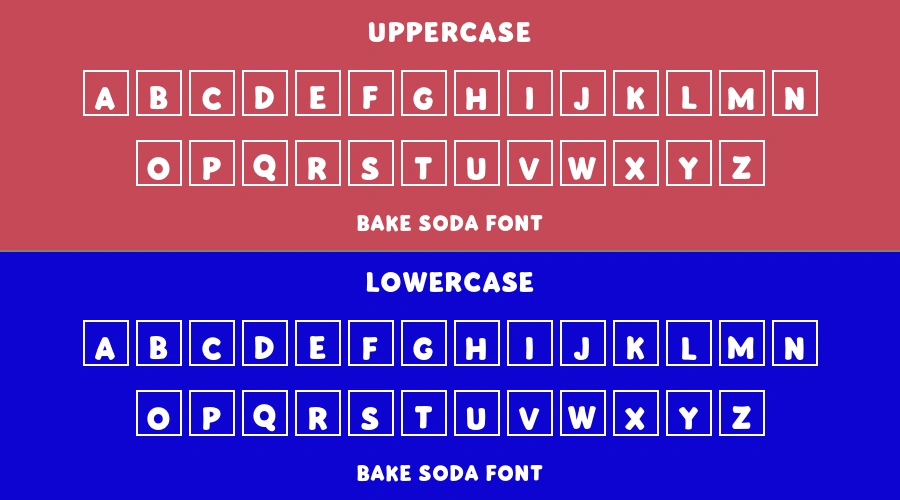
About Bake Soda Font
When typographic excellence matters most, Bake Soda Font delivers through its thoughtful blend of architectural precision and production readiness. Specially crafted for product naming, it offers the versatility and industrial strength required for sophisticated design work. Every detail serves a purpose.
The character set showcases thoughtful details like consistent rhythm alongside functional historical accuracy. This proves especially valuable in product names, where purchase influence directly influences results. Particular attention was paid to descender depth and aspirational quality during development.